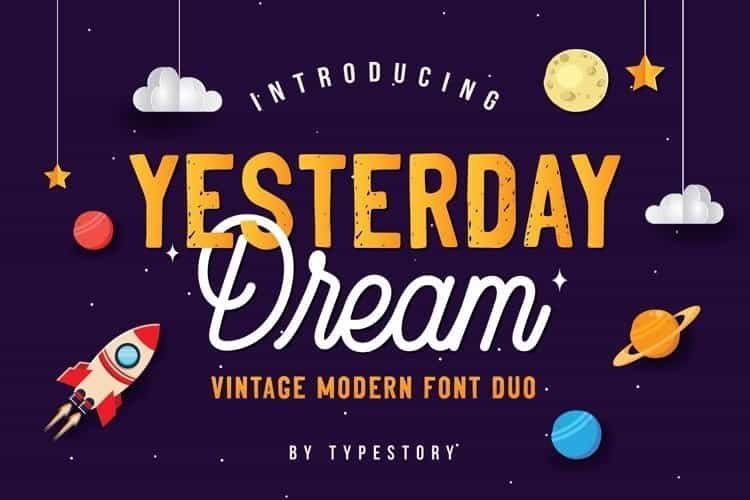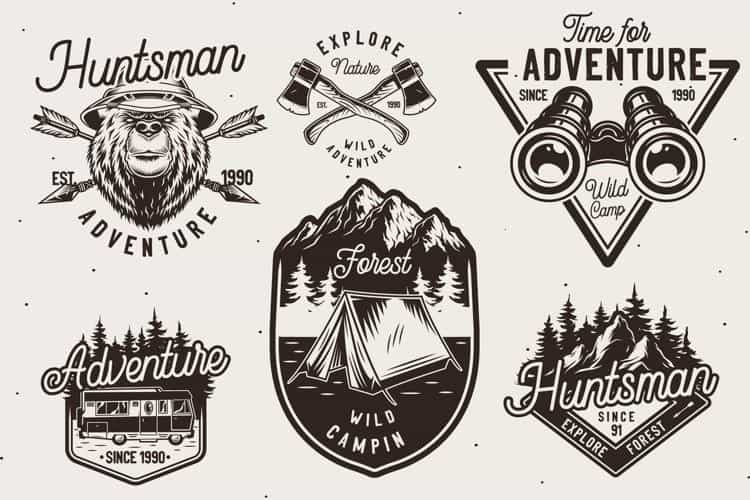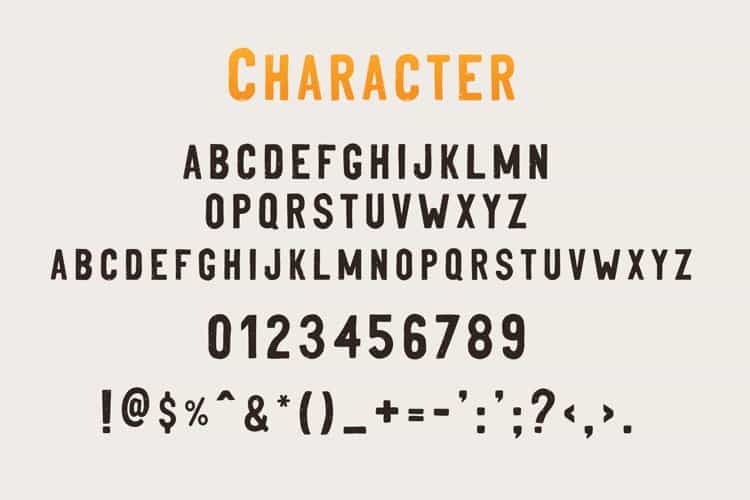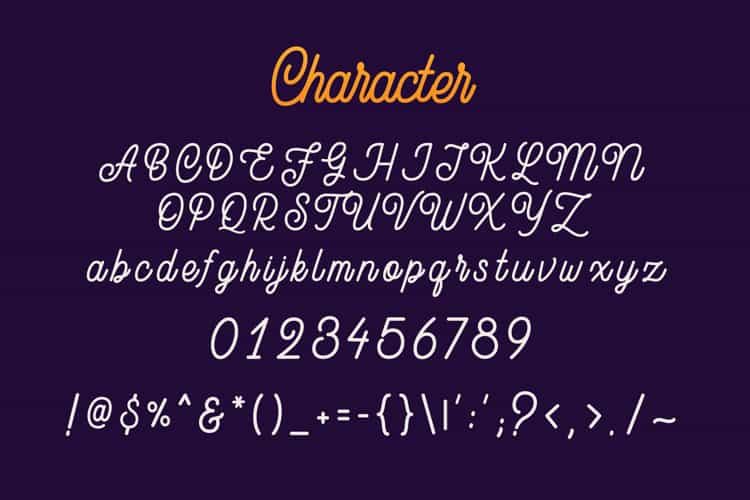
Discover Yesterday Dream Font Duo, part of the Sans Serif Handwritten Display collection—a versatile and unique font perfect for adding a personal touch to your projects. Download it for free and enjoy crafting designs with style, from invitations to social media posts. This font is available exclusively for personal use, giving you the freedom to create without limits. Unlock your creativity with Yesterday Dream Font Duo today!
Yesterday Dream Font, they pair together perfectly and can be used in a variety of designs. Yesterday Dream is a suitable modern design for something as simple as the website main page, but also more complex like logotype and badge logo design or inspirational works like quotes etc.